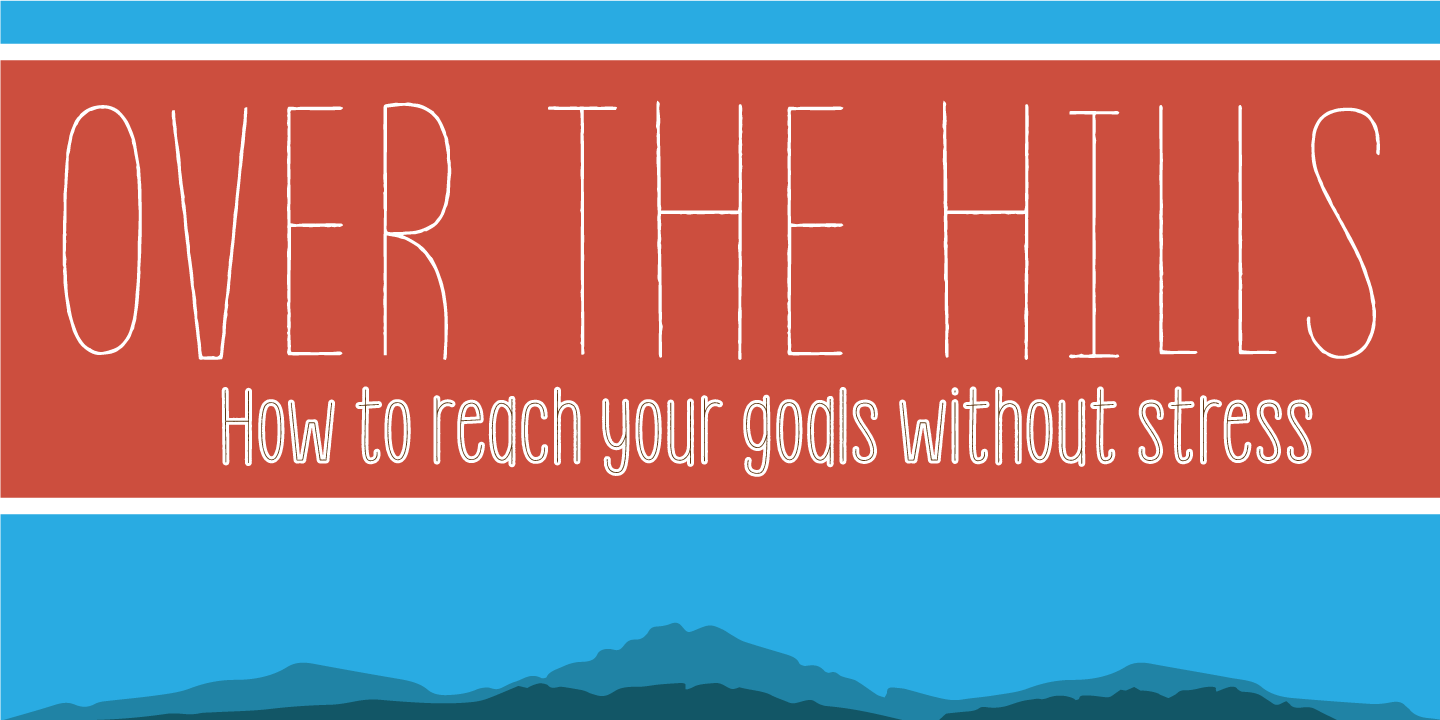
Mundlam Font is perfect for contemporary art gallery branding, modern design studio communications, minimalist architectural projects, clean tech company logos, sophisticated urban planning materials, progressive creative agency signage, innovative startup presentations, and cutting-edge digital brand expressions.
What makes Mundlam Font exciting is its refined minimalism and contemporary sophistication that embodies the essence of modern design philosophy and progressive thinking. This exceptional typeface combines geometric precision with artistic sensibility, creating letters that speak with quiet confidence and resonate with contemporary elegance. The font's clean character construction and modern aesthetic make it an ideal choice for brands seeking to communicate innovation, sophistication, and forward-thinking design mastery.
Mundlam Font family includes Regular, Bold, Light, Thin, Medium, and Extended variations, plus geometric elements and modern symbols. Each style maintains the font's contemporary character while providing comprehensive flexibility for creating sophisticated modern design systems and progressive brand communications that reflect cutting-edge design thinking and innovative excellence.
Contemporary design specialists consistently choose Mundlam Font Free Download for projects requiring modern sophistication and innovative visual impact. This remarkable typeface has gained recognition among design studios, tech companies, and progressive organizations worldwide. The font's ability to convey innovation and contemporary elegance makes it perfect for brands operating in technology, design, and modern creative markets.
The design philosophy behind Mundlam Font emphasizes contemporary minimalism and progressive sophistication. Its letterforms feature clean geometric construction with carefully balanced proportions that reflect the principles of modern design and innovative thinking. The font's distinctive elements include subtle geometric details and contemporary character variations that create immediate connection with audiences seeking cutting-edge design solutions and modern experiences.
Creative agencies specializing in modern and tech branding frequently select Mundlam Font for clients requiring contemporary communication and innovative brand expression. The font's versatility allows seamless integration into comprehensive modern branding systems, from tech startup campaigns to design studio promotions, ensuring consistent brand personality across all contemporary and innovative touchpoints.
The technical execution of Mundlam Font demonstrates advanced understanding of contemporary typography requirements and modern design standards. Optimized for both digital applications and modern print materials, the font includes extensive OpenType features that support innovative design workflows. The comprehensive character set and modern symbol library make it suitable for international contemporary campaigns requiring authentic modern typography with global progressive appeal.